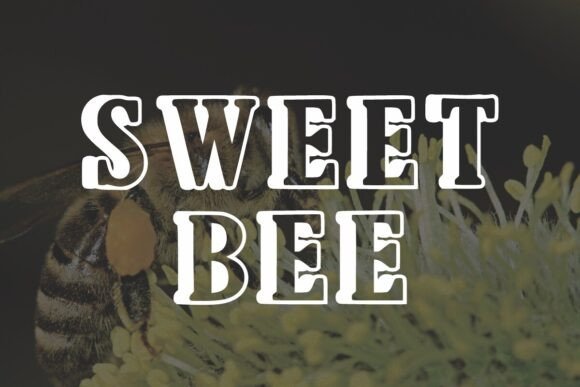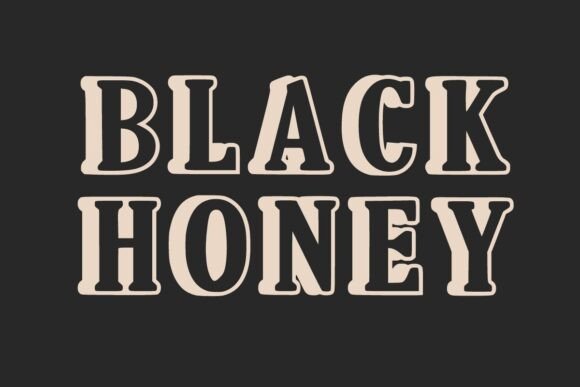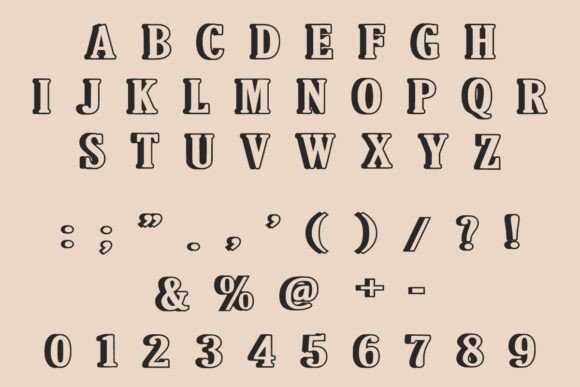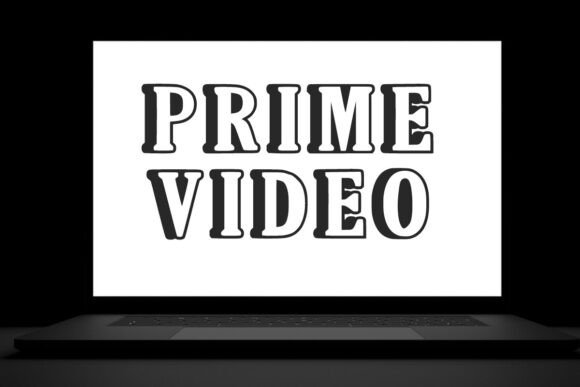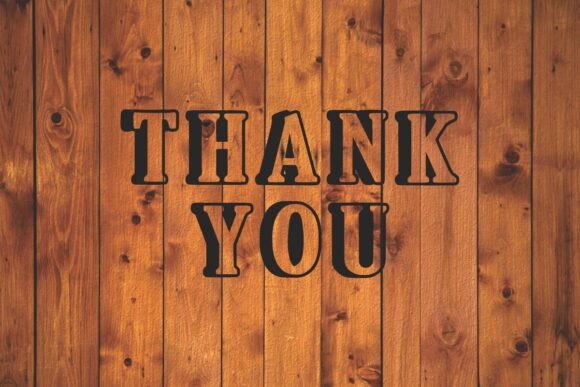
Discover the Sweetness of Black Honey Font: Elevate Your Designs with this Modern Display Font
Are you tired of using the same old fonts in your designs? Look no further than Black Honey Font, a modern display font that’s as sweet as it is stylish. With its outline design and impeccable friendliness, Black Honey is the perfect addition to any design project. In this article, we’ll dive into the world of Black Honey Font and explore its features, benefits, and uses.
What is Black Honey Font?
Black Honey Font is a modern display font that’s designed to make a statement. Its outline design gives it a sleek and sophisticated look, while its bold lines and curves convey a sense of friendliness and approachability. Whether you’re using it for crafts, digital design, presentations, or making greeting cards, Black Honey Font is sure to impress.
Key Features of Black Honey Font
- Easy-to-read: Despite its bold design, Black Honey Font is surprisingly easy to read, making it perfect for use in a variety of applications.
- Modern display font: Black Honey Font is a modern take on traditional display fonts, with a unique outline design that sets it apart from the crowd.
- Impeccable friendliness: The font’s bold lines and curves convey a sense of friendliness and approachability, making it perfect for use in designs where you want to make a good impression.
- Versatile: Black Honey Font is versatile and can be used in a variety of applications, from crafts and digital design to presentations and greeting cards.
Benefits of Using Black Honey Font
So why should you choose Black Honey Font for your next design project? Here are just a few benefits of using this amazing font:
- Adds a touch of elegance: Black Honey Font adds a touch of elegance and sophistication to any design project, making it perfect for use in high-end applications.
- Conveys friendliness: The font’s bold lines and curves convey a sense of friendliness and approachability, making it perfect for use in designs where you want to make a good impression.
- Easy to use: Black Honey Font is easy to use and can be easily integrated into a variety of design applications.
- Unique: Black Honey Font is a unique and distinctive font that will help your designs stand out from the crowd.
Uses of Black Honey Font
So what can you use Black Honey Font for? The possibilities are endless! Here are just a few ideas to get you started:
- Crafts: Use Black Honey Font to add a touch of elegance and sophistication to your craft projects, from scrapbooking to card making.
- Digital design: Black Honey Font is perfect for use in digital design applications, from social media graphics to website headers.
- Presentations: Add a touch of professionalism and sophistication to your presentations with Black Honey Font.
- Greeting cards: Use Black Honey Font to create beautiful and elegant greeting cards for any occasion.
In conclusion, Black Honey Font is a modern display font that’s sure to elevate your designs to the next level. With its outline design, impeccable friendliness, and versatility, Black Honey Font is the perfect addition to any design project. Whether you’re a designer, crafter, or simply someone who loves to create, Black Honey Font is a must-have font that’s sure to become your new go-to.